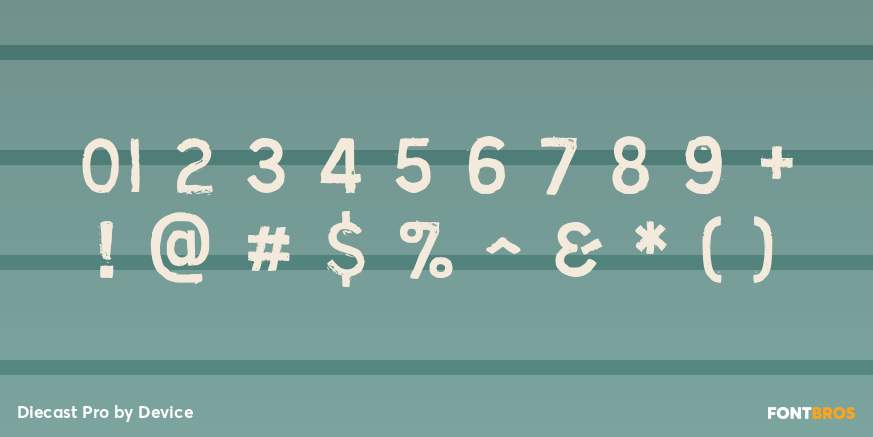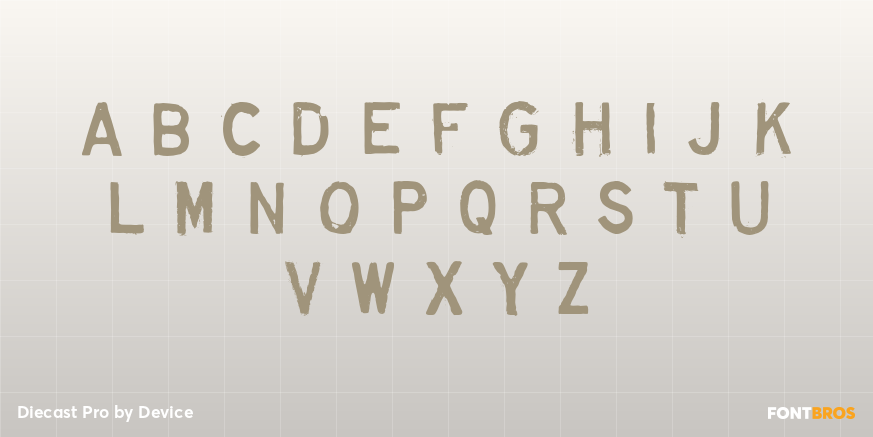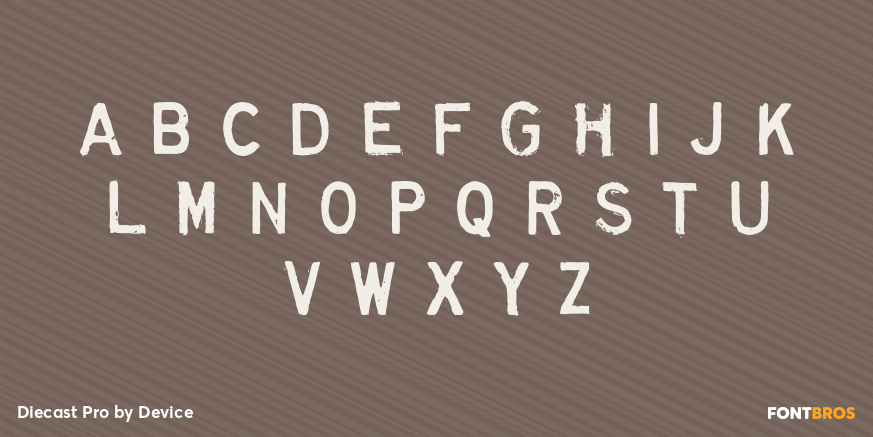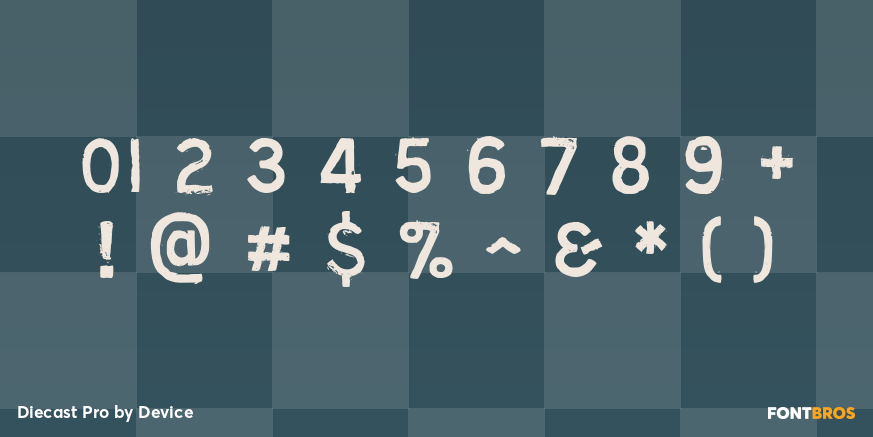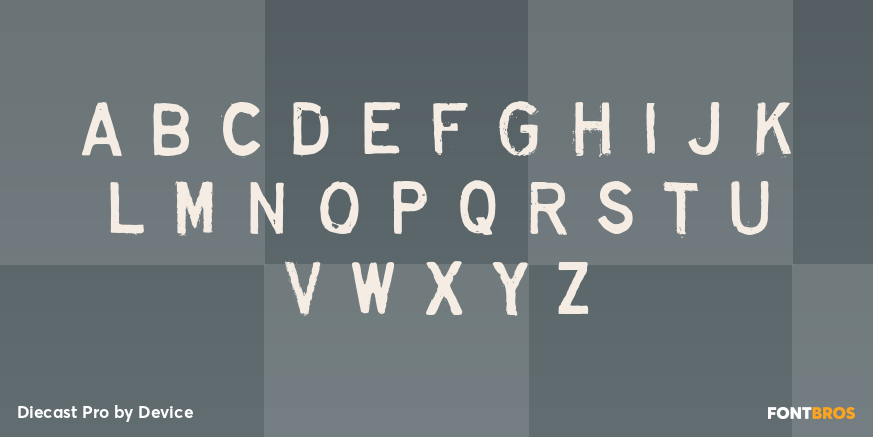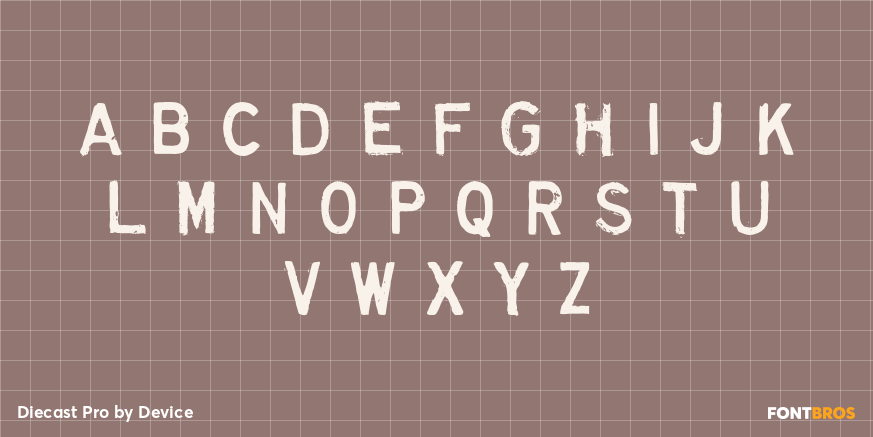
Diecast Pro
Font Family by Device
A companion piece to Mulgrave, this font is the intermediary design between the chunky Victorian style that Mulgrave reproduces and the Ministry of Transport sans introduced in 1933 and digitised as Ministry. Although they date from between 1910 and 1933, these signs show the beginnings of several features Ministry later incorporated, notably the thinner strokes and the more modern forms of the G, M, R and S. The letter widths are approaching a monospace - the L, F and E are relatively wide compared to the W and M, a feature that may have something to do to the casting process. These idiosyncracies were all ironed out when the first version of the MOT alphabet was produced. The Device digitization, as with Mulgrave, stays true to the worn and repainted original metal source material and preserves the unusual widths.